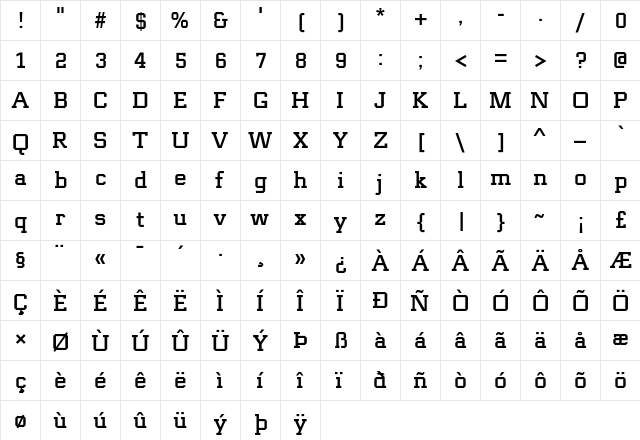
Roseamp Regular
Design Context for Roseamp Typeface
Roseamp is a composed and adaptable typeface that performs quietly and consistently across a wide range of design contexts.